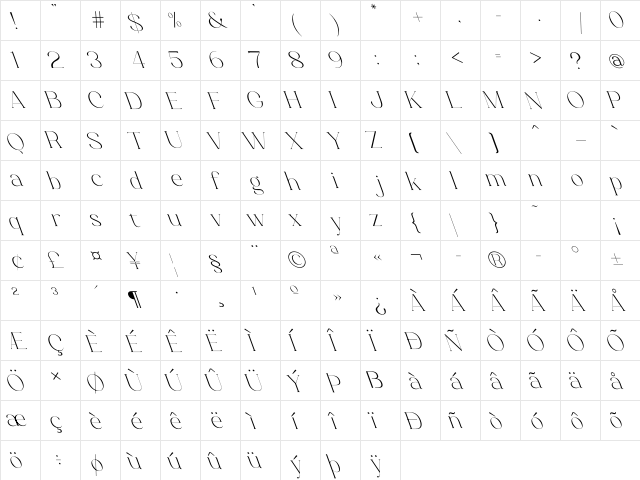
Luimp Light Oblique Light Font Preview
Design Context for Luimp Light Oblique Typeface
Luimp Light Oblique takes a measured approach to typography — its balanced proportions and neutral character make it a reliable workhorse for both digital and print work. Its italic angle brings a sense of urgency and motion to the letterforms. Its slender proportions lend an understated elegance to any composition.
Pro Tip: Try Luimp Light Oblique for annotation and caption copy alongside an upright companion — the contrast in angle creates a dynamic but ordered typographic system.